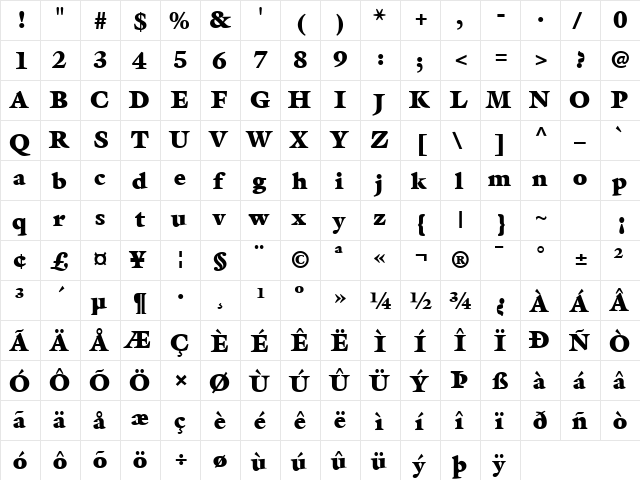
FZ ROMAN 26 Normal
Design Context for FZ ROMAN 26 Typeface
FZ ROMAN 26 takes a measured approach to typography — its balanced proportions and neutral character make it a reliable workhorse for both digital and print work.